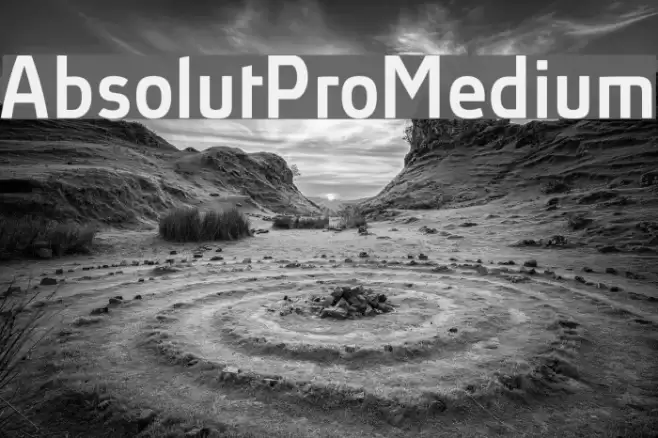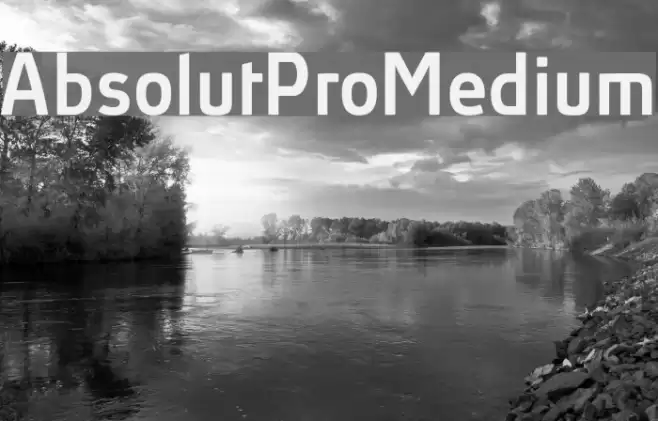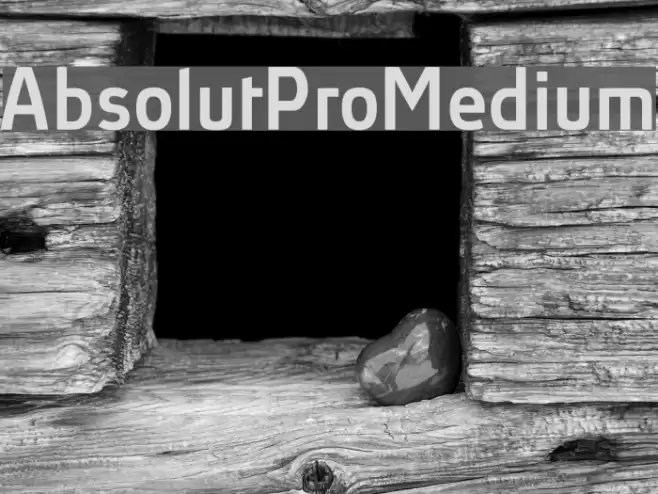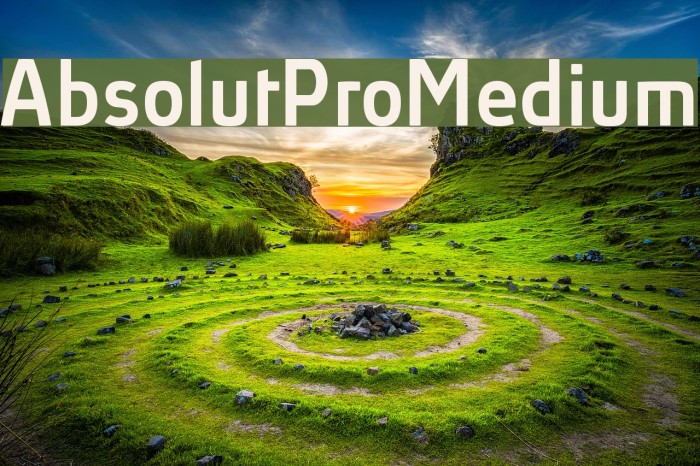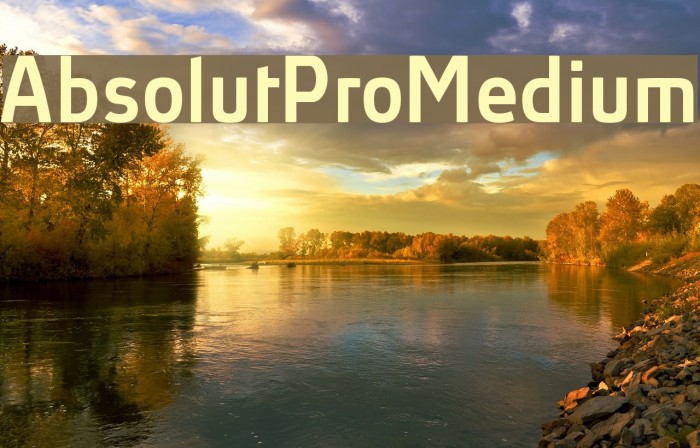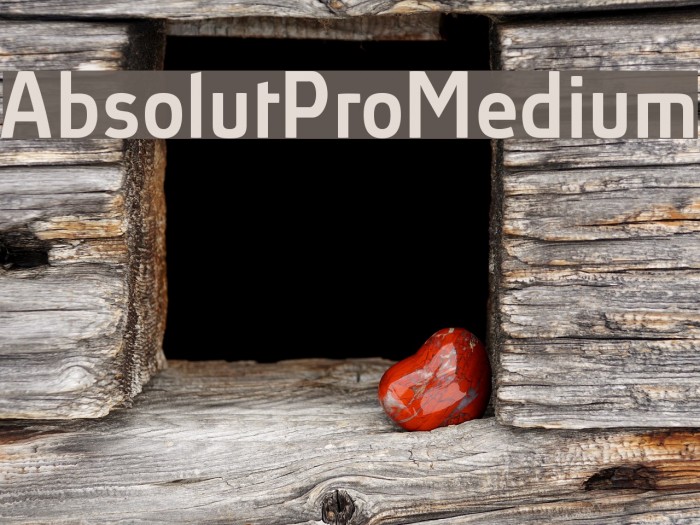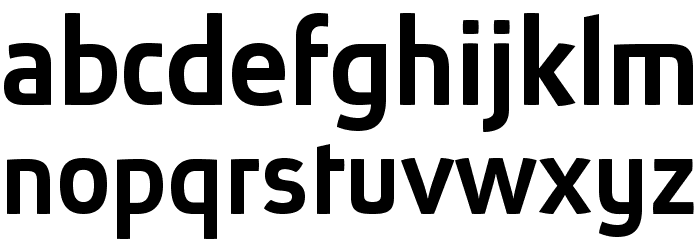
AbsolutPro-Medium Font
AbsolutPro-Medium Description
This font features a clean and modern sans-serif style with a uniform stroke width, providing a balanced and professional appearance. The characters are well-proportioned, with a slightly condensed structure that enhances readability while maintaining a sleek aesthetic. The uppercase letters are bold and assertive, while the lowercase letters offer a softer, more approachable look. The numerals are clear and distinct, ensuring legibility in various contexts. Special characters are designed to complement the overall style, making this font versatile for multiple applications.
A modern sans-serif font with a clean, balanced, and slightly condensed style from Uncategorized fonts.
- Proposed Projects: Ideal for corporate branding, digital interfaces, editorial design, and advertising materials.